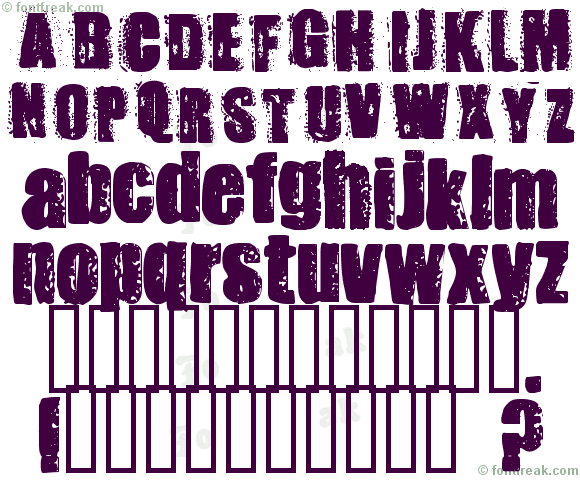
Stank
About Stank
Stank by Pennyzine is a distinctive display font that stands out with its playful and quirky character. This font features a unique style that leans towards a decorative category, making it perfect for projects that require a touch of whimsy. The strokes of the Stank font exhibit a bold weight, with uneven edges that give it a hand-crafted appearance. The contrast within the letters is minimal, contributing to an overall cohesive look that is both striking and approachable. The spacing is deliberately wide, allowing the characters to breathe and enhancing legibility even in larger sizes.
The Stank font is ideally suited for various creative applications, including vibrant posters for events, eye-catching headlines in magazines, and playful branding for cafes or restaurants. Its unique appearance makes it an excellent choice for children's book covers, where a fun and engaging aesthetic is essential. Additionally, the Stank font can add a distinctive flair to social media graphics, capturing the attention of followers with its unconventional style.
In summary, the Stank font free download offers an exceptional opportunity to enhance visual projects with its unique charm and character. Its playful design, coupled with its versatility across various applications, makes it a valuable addition to any designer's toolkit. Whether for print or digital media, the Stank font is sure to leave a lasting impression.